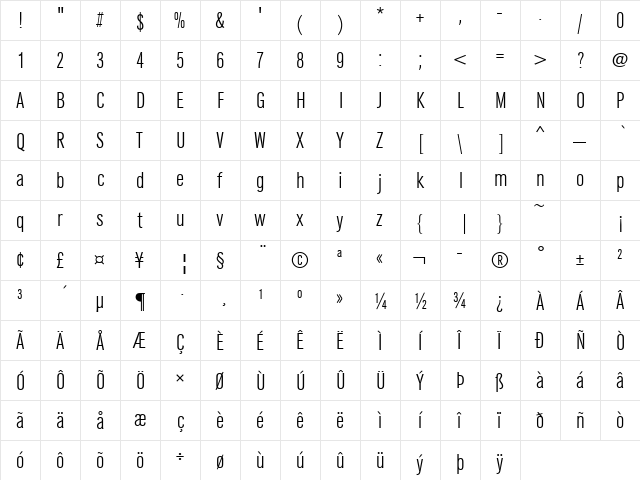
URWGroteskELigCon Regular
Design Context for URWGroteskELigCon Typeface
URWGroteskELigCon has the quiet confidence of well-executed sans-serif typography: versatile, unobtrusive, and dependable at any size.
Font Pairing: Works well alongside a characterful serif or display font that can carry the expressive load while URWGroteskELigCon handles the functional copy.
Pro Tip: Use URWGroteskELigCon for UI labels, navigation, and short-form body copy where clean legibility is the priority.